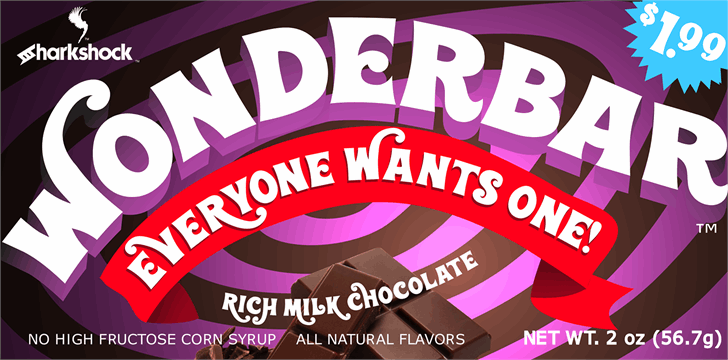
Today we're glad to feature this free wonderbar font. This free typeface file was found from the amazing source called Font Space. Easily amaze your audience with this fancy font and make your graphic designs pop up from the crowd.